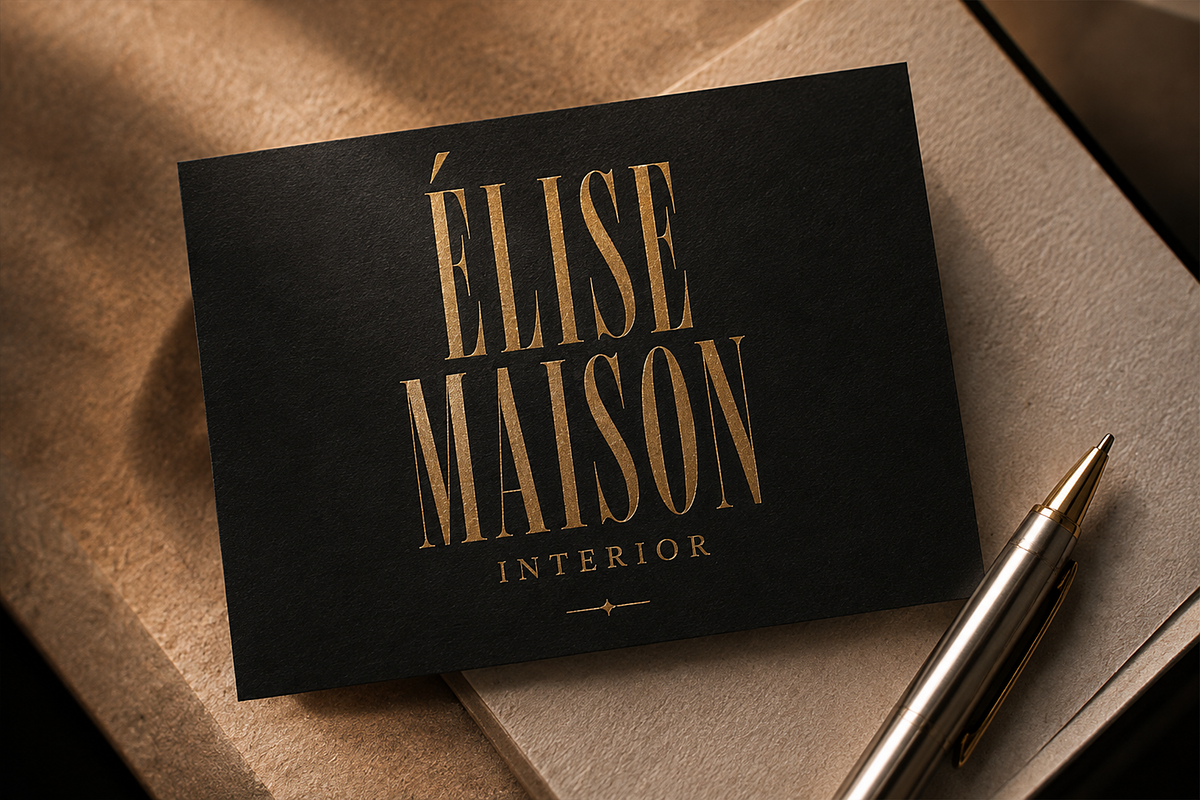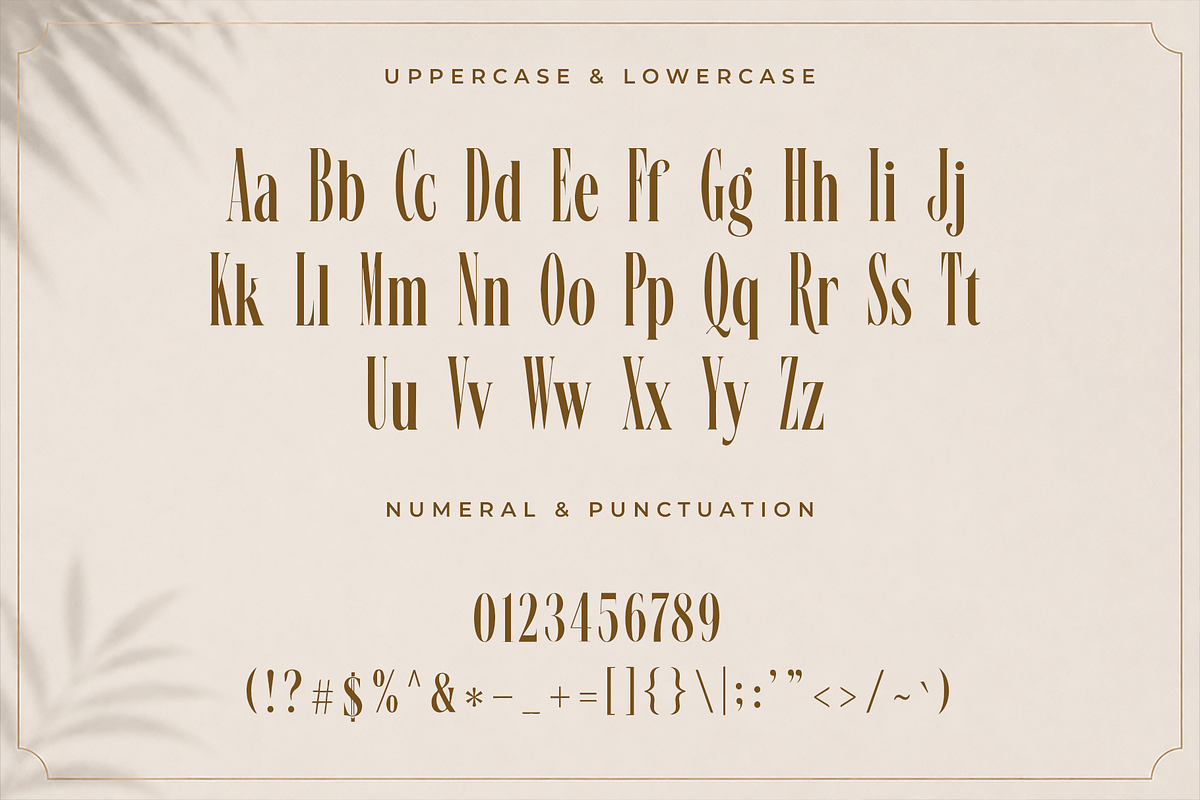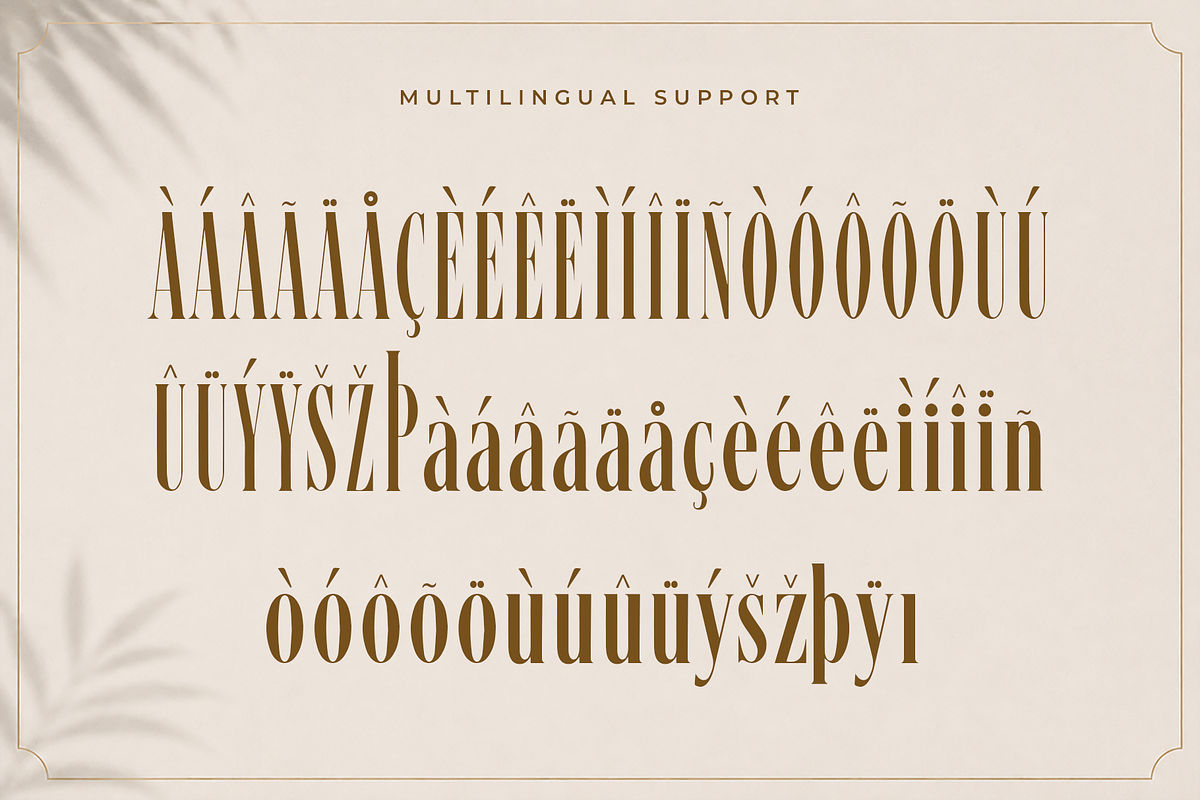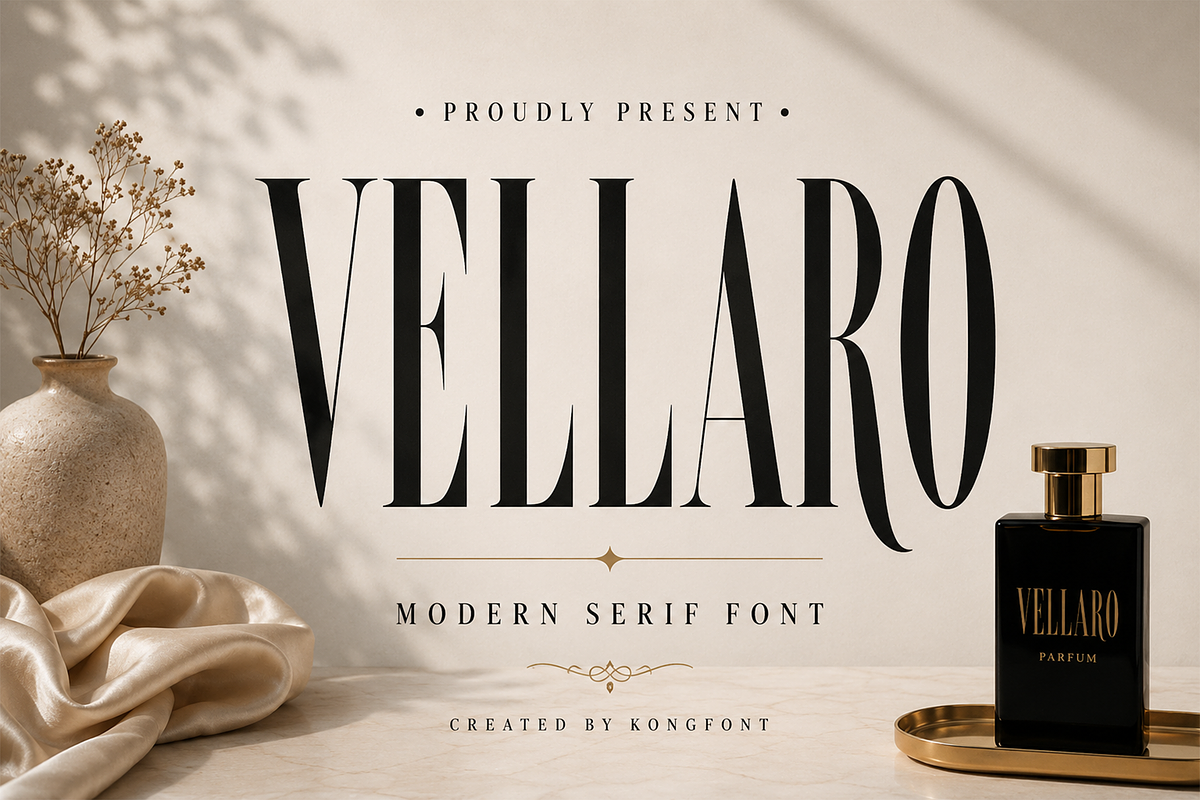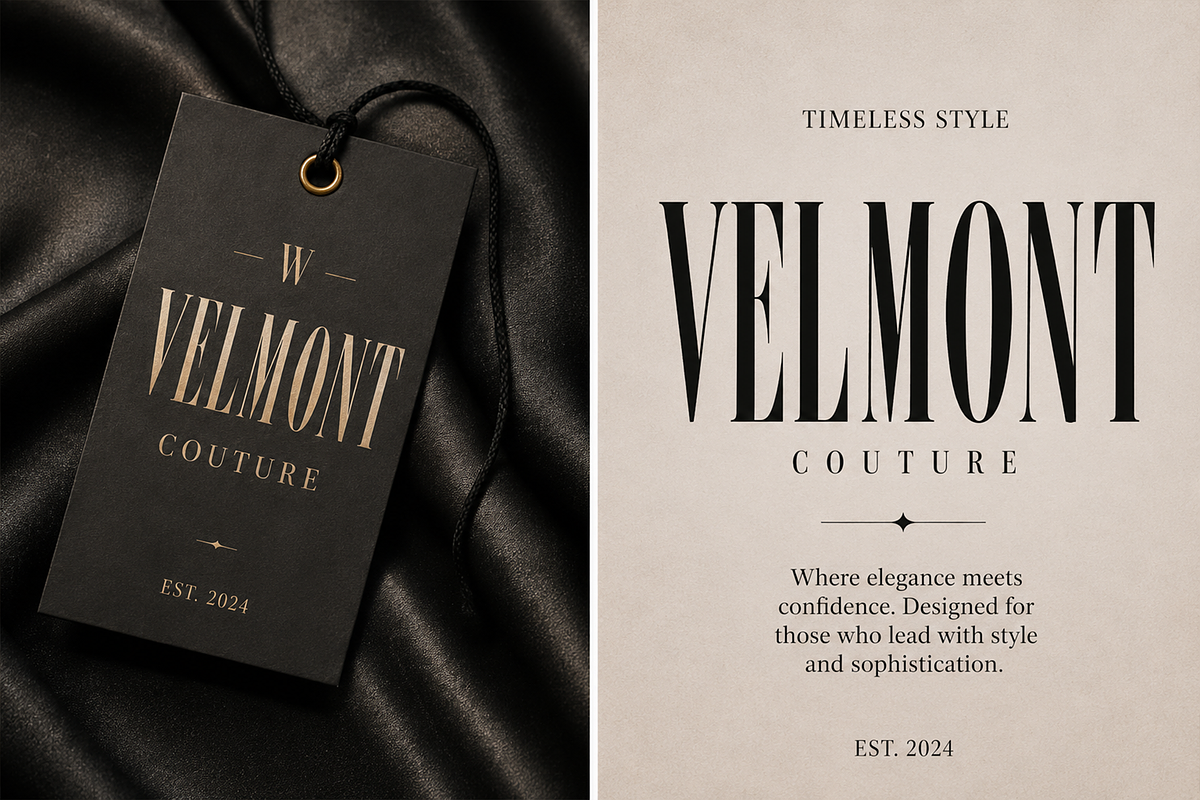
Vellaro - Luxury Modern Serif
Vellaro - Luxury Modern Serif Typeface
Meet "Vellaro," a luxury modern serif typeface crafted with dramatic contrast, elegant proportions, and a sophisticated editorial character. Its tall, graceful letterforms combine delicate hairlines with bold vertical strokes, creating a refined visual presence that feels contemporary, fashionable, and timeless.
Inspired by luxury fashion, premium fragrance packaging, and high-end editorial design, Vellaro is especially effective for logos, headlines, magazine covers, beauty branding, perfume labels, cosmetics, jewelry identities, wedding stationery, and upscale product packaging. Its distinctive silhouettes make every word feel polished and memorable.